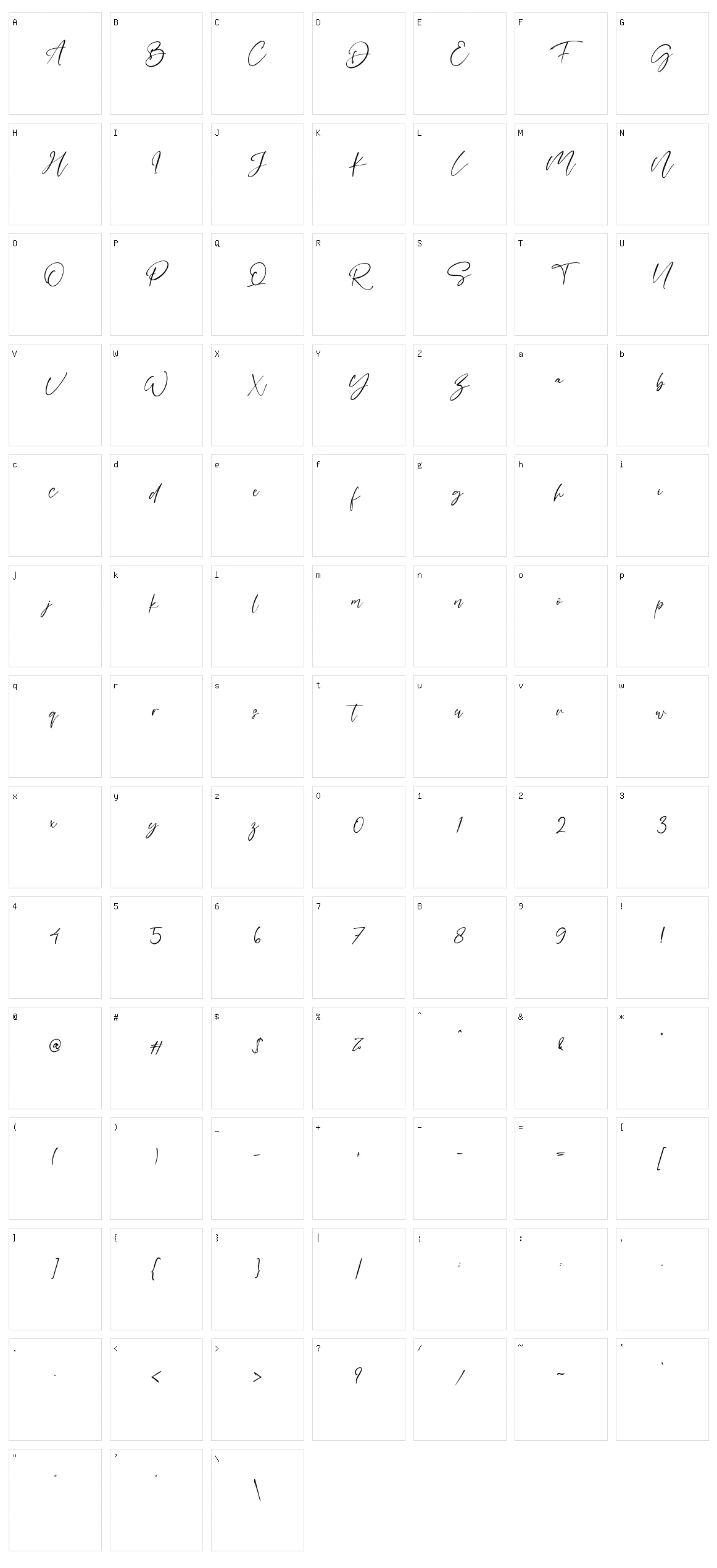
The free font Basskia is carefully designed by Kong Font, showcasing a thoughtful balance of creativity and usability and falls under the Script font style. When you download the ZIP file, it contains only 90.88 KB of font files, making it lightweight and quick to download. Please review the license details below to understand permitted usage and distribution rights. If license information is not available, we recommend using this font for personal projects only or contacting the author directly for commercial usage permissions.